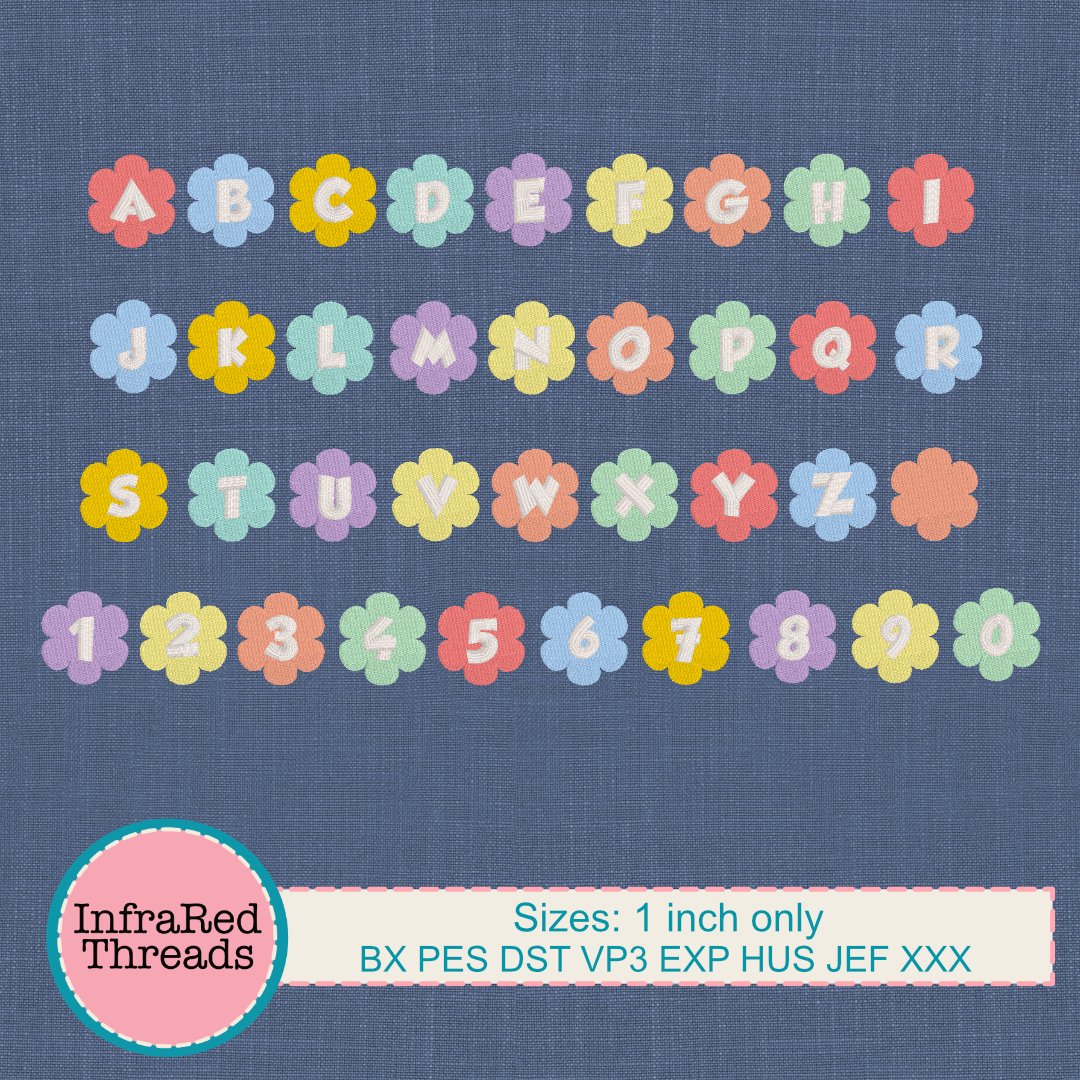
Bloom Flower Embroidery Font – Block Letters in 1” Floral Motif
The Bloom Font is a whimsical embroidery alphabet where each letter is stitched inside a cheerful flower shape. With bold block letters and colorful floral backdrops, this font is perfect for spring projects, kids’ apparel, nursery decor, or any design that needs a bright and fun touch.
Designed for both personal and small business use, this font includes uppercase letters sized at 1” (25mm). Each letter comes as a standalone floral element, making it easy to spell out names, phrases, or seasonal sayings with a vibrant twist.